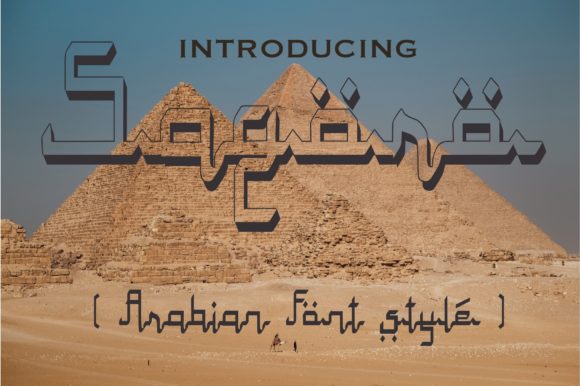
Saqoro Font is the flawless architect of impeccable first impressions. Crafted by the ingenious minds at IZKcreative, this font was meticulously designed to ignite your modern CV with an aura of sophistication and creativity.
Each stroke of Saqoro Font exudes a captivating allure, effortlessly capturing the attention of recruiters and potential employers. Its chic and whimsical nature infuses your CV with a touch of individuality, setting you apart from the sea of ordinary candidates.
Whether you're a seasoned professional or a budding entrepreneur, Saqoro Font will elevate your CV to new heights of distinction. Its versatility knows no bounds, seamlessly adapting to any creative endeavor you envision. From letterheads that command respect to stunning titles that leave a lasting impression, Saqoro Font is the font of choice for those who seek to make an indelible mark in the professional arena.
Indulge in the limitless possibilities that Saqoro Font offers. Let its captivating charm weave its magic into your CV, transforming it into a masterpiece that will open doors to success.